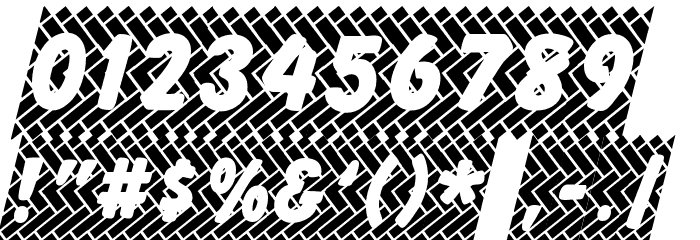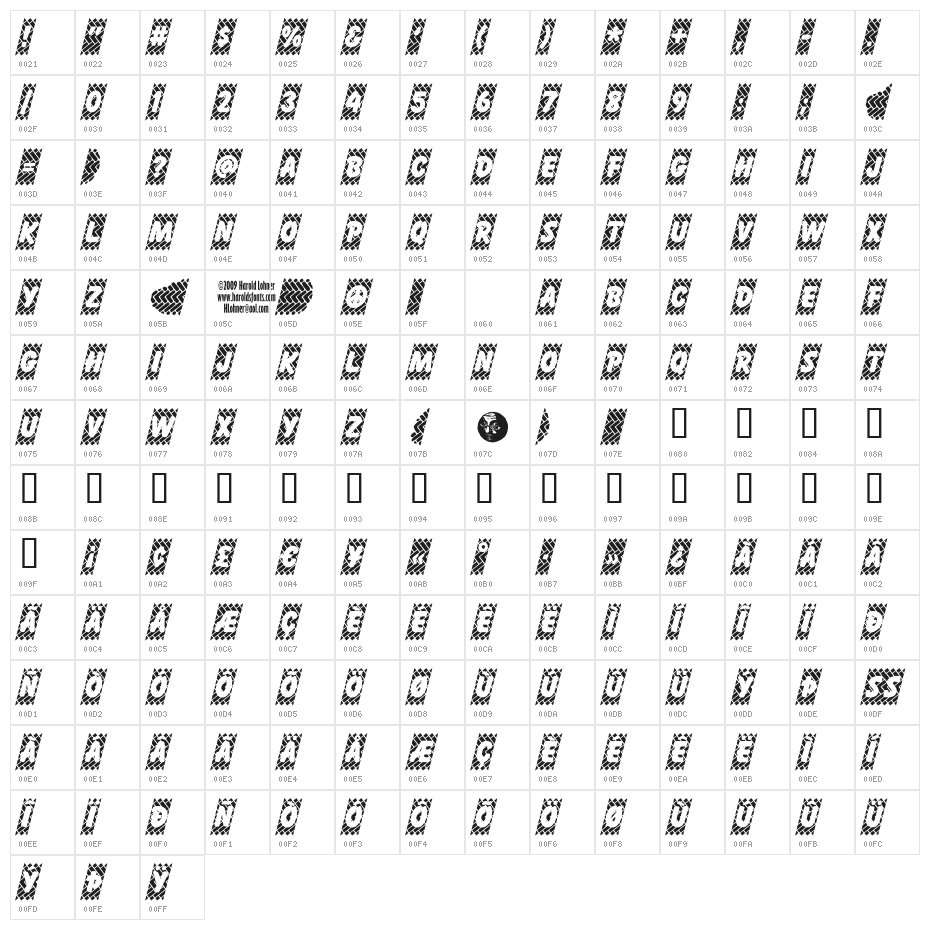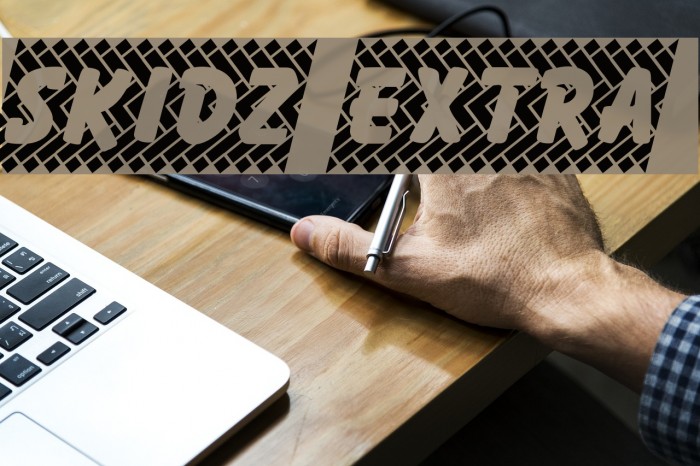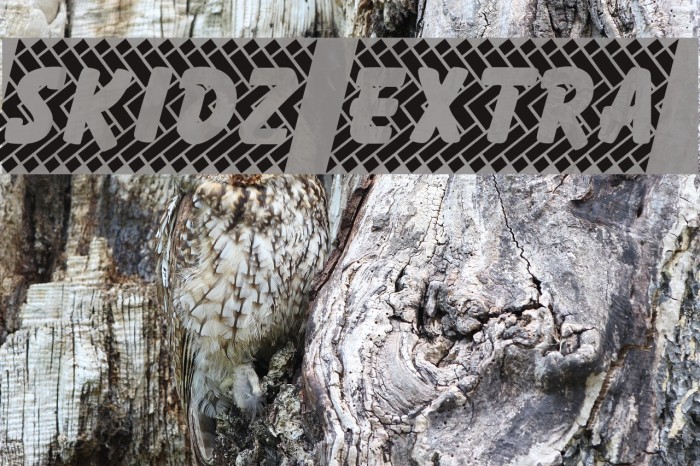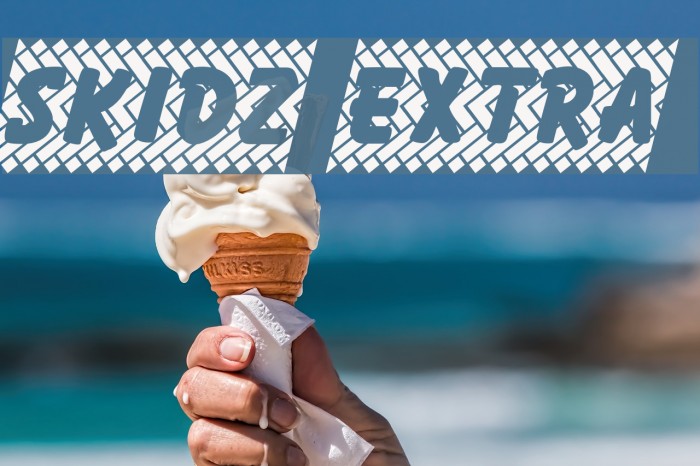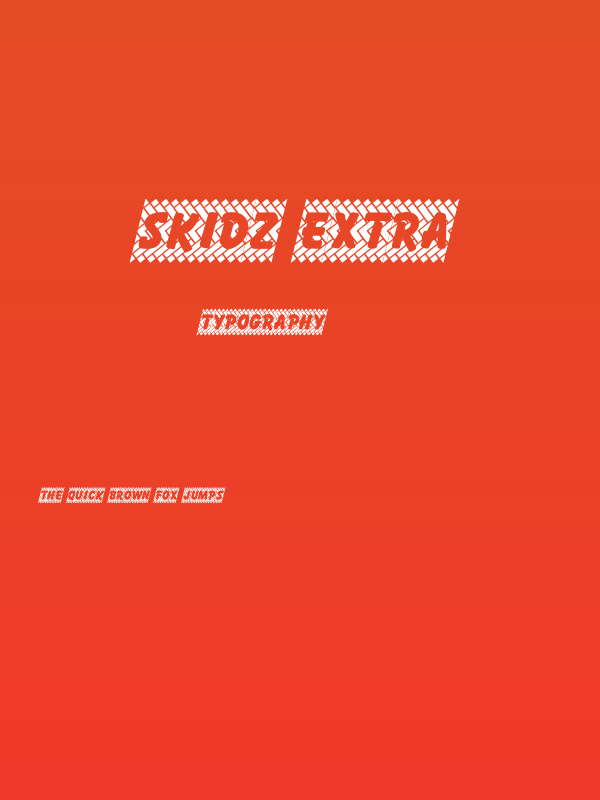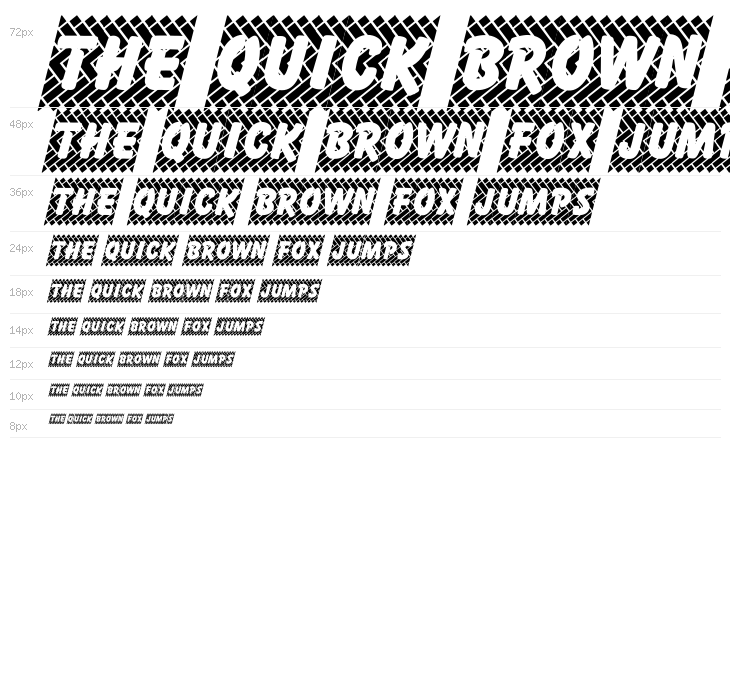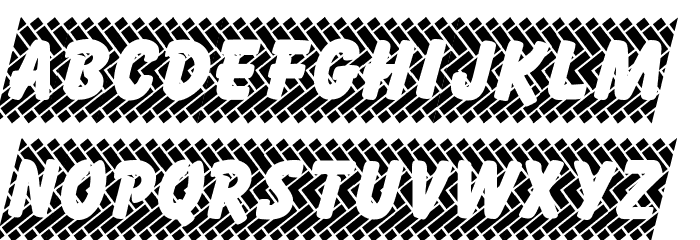
Skidz Extra Font
Skidz Extra Description
This font features a bold and dynamic style with a distinct slanted orientation, giving it a sense of movement and energy. The characters are crafted with a thick, uniform stroke, creating a strong visual impact. The design incorporates a unique pattern within each letter, adding a textured appearance that enhances its decorative quality. The uppercase and lowercase letters maintain consistency in style, while the numerals and special characters are designed to complement the overall aesthetic. This font is ideal for projects that require a bold and eye-catching display.
Overall StyleModern, Decorative
Proposed ProjectsIdeal for posters, headlines, branding, and any project needing a striking, energetic typeface.